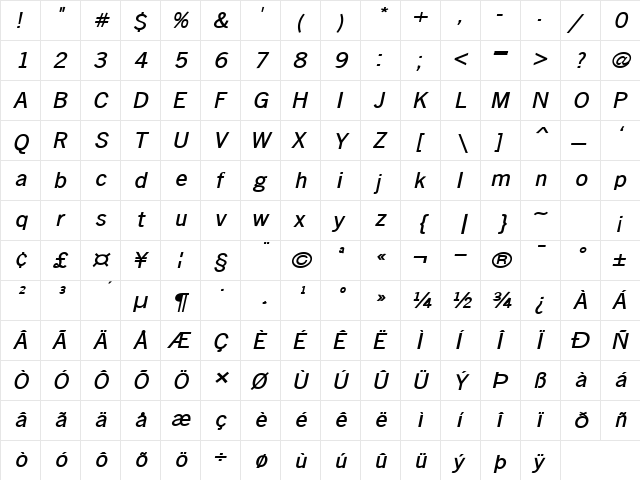
Matterhorn-Extended Bold Italic Font Preview
Design Context for Matterhorn-Extended Typeface
Matterhorn-Extended takes a measured approach to typography — its balanced proportions and neutral character make it a reliable workhorse for both digital and print work. Its italic angle brings a sense of urgency and motion to the letterforms. Its bold stroke weight gives it real presence on the page.
Pro Tip: Try Matterhorn-Extended for annotation and caption copy alongside an upright companion — the contrast in angle creates a dynamic but ordered typographic system.